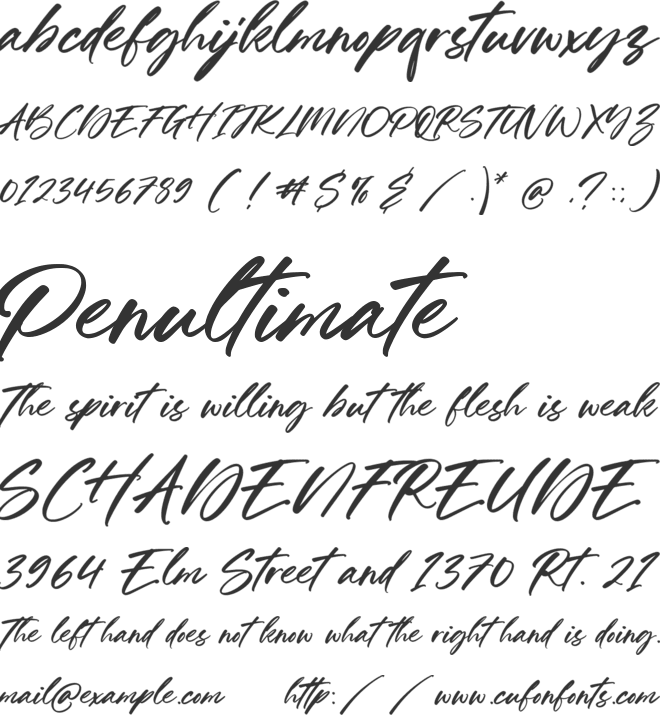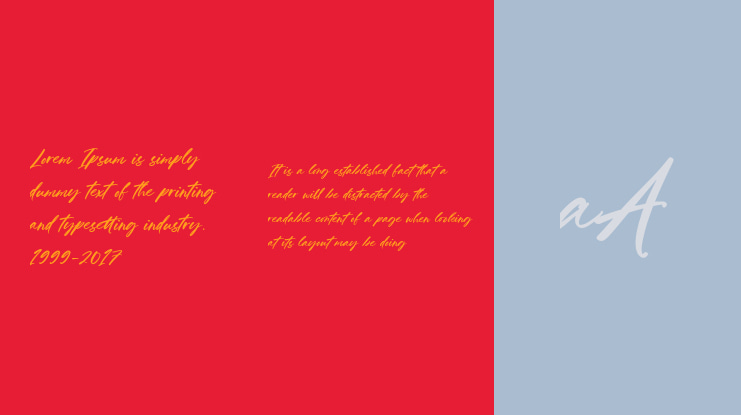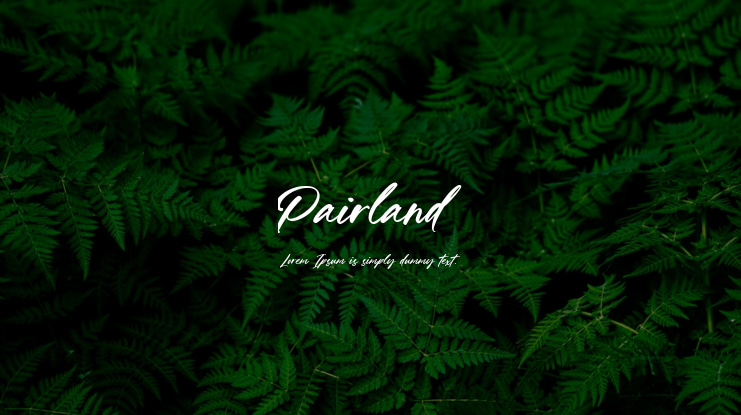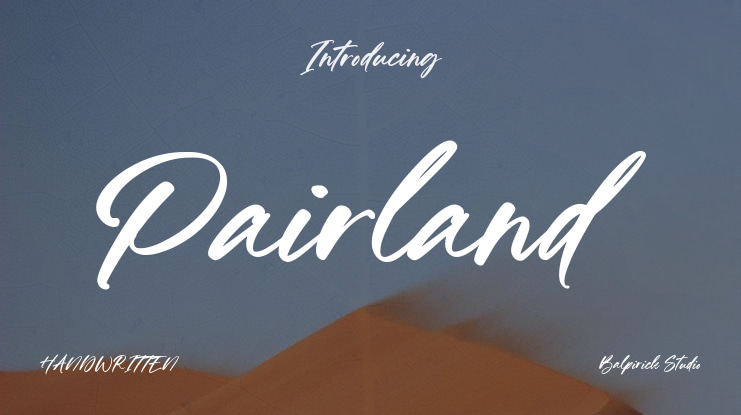
Pairland Font
Pairland is a sleek and contemporary calligraphy font that will add a touch of elegance to your design projects.
Crafted with meticulous care and attention to detail, this font offers incredible versatility and can be used for a wide range of design projects, such as logos, branding, invitations, and more.
With its modern and hand-drawn style, Pairland boasts a unique character that is guaranteed to leave a lasting impression.
Furthermore, Pairland also provides multilingual support, making it suitable for international design projects.